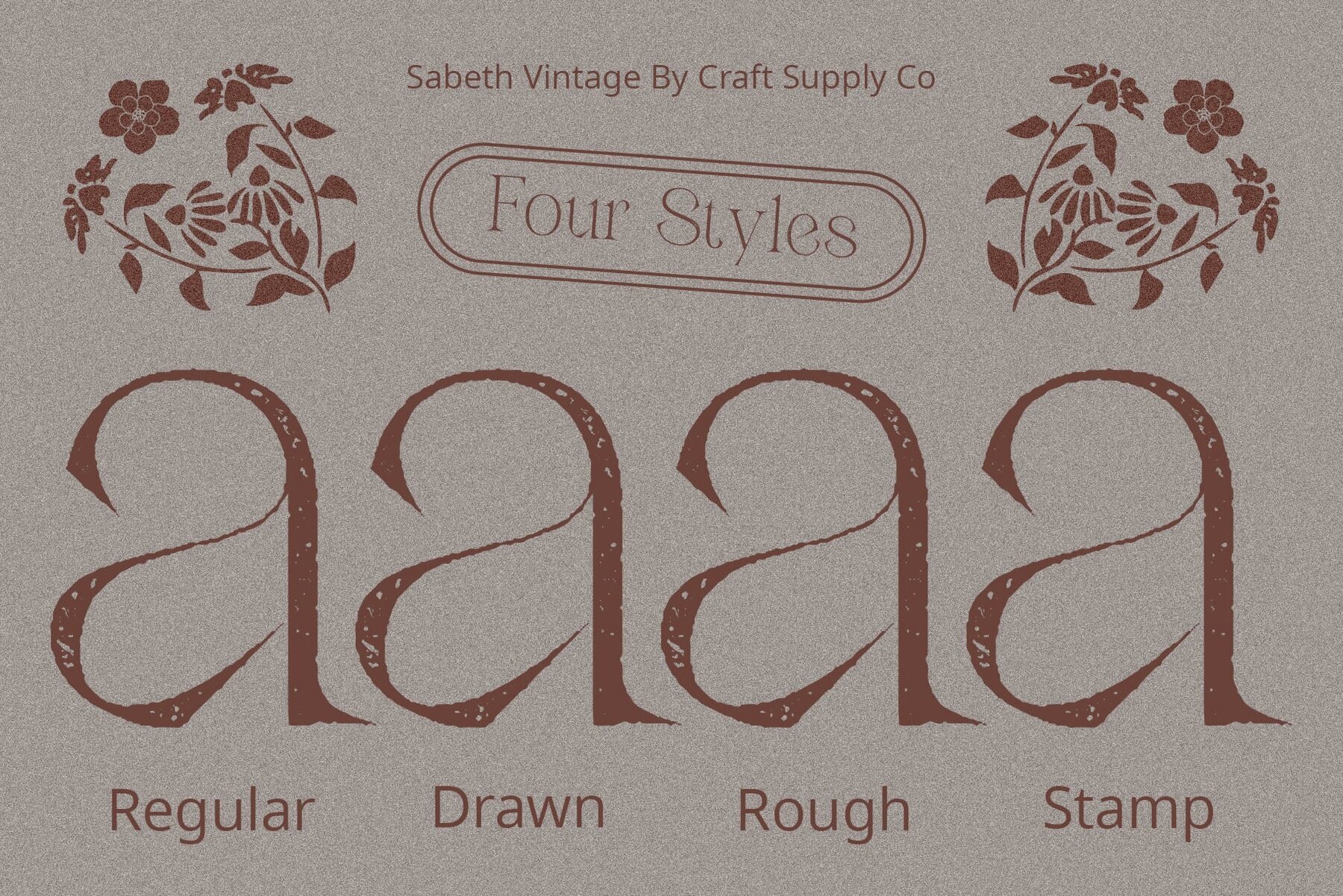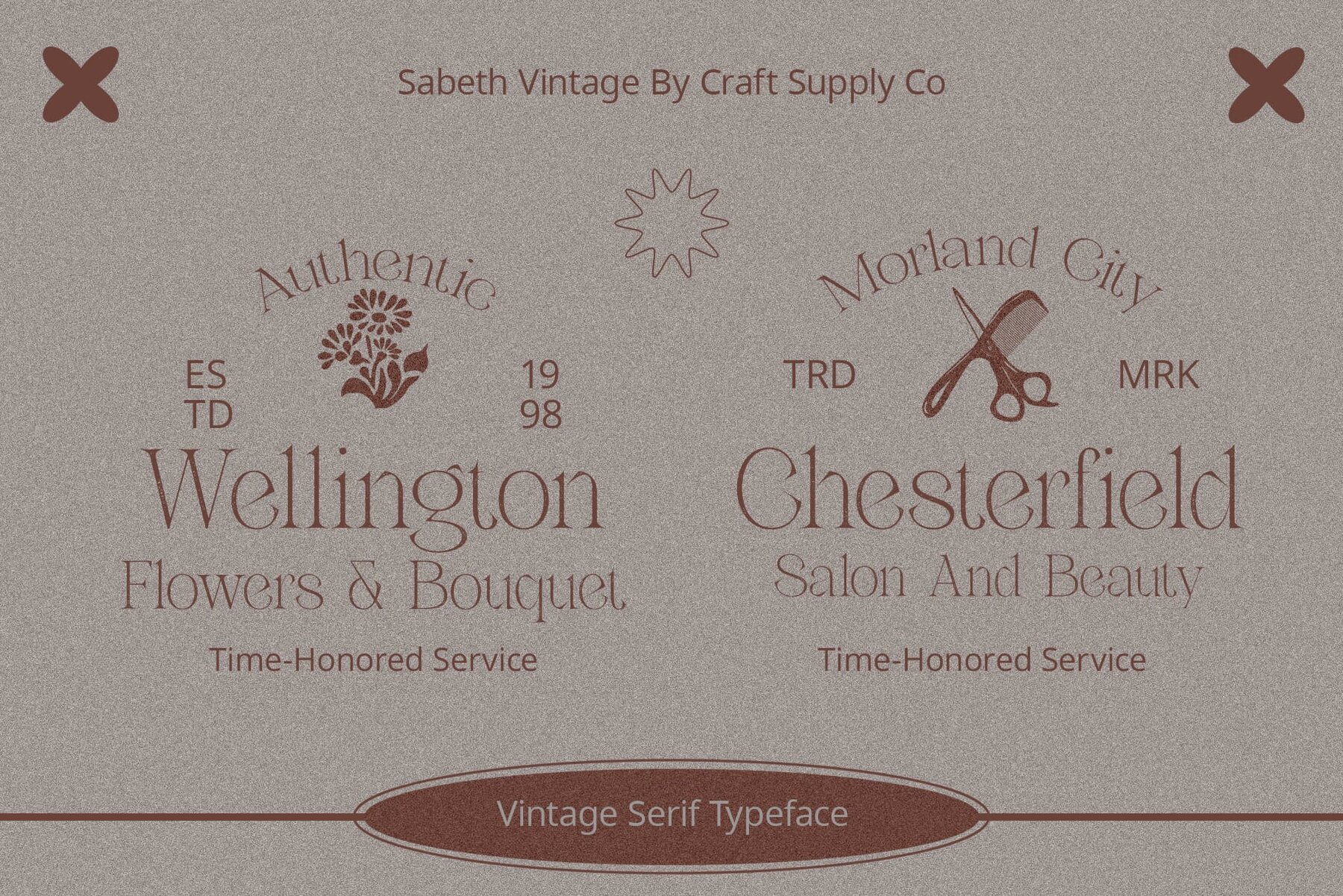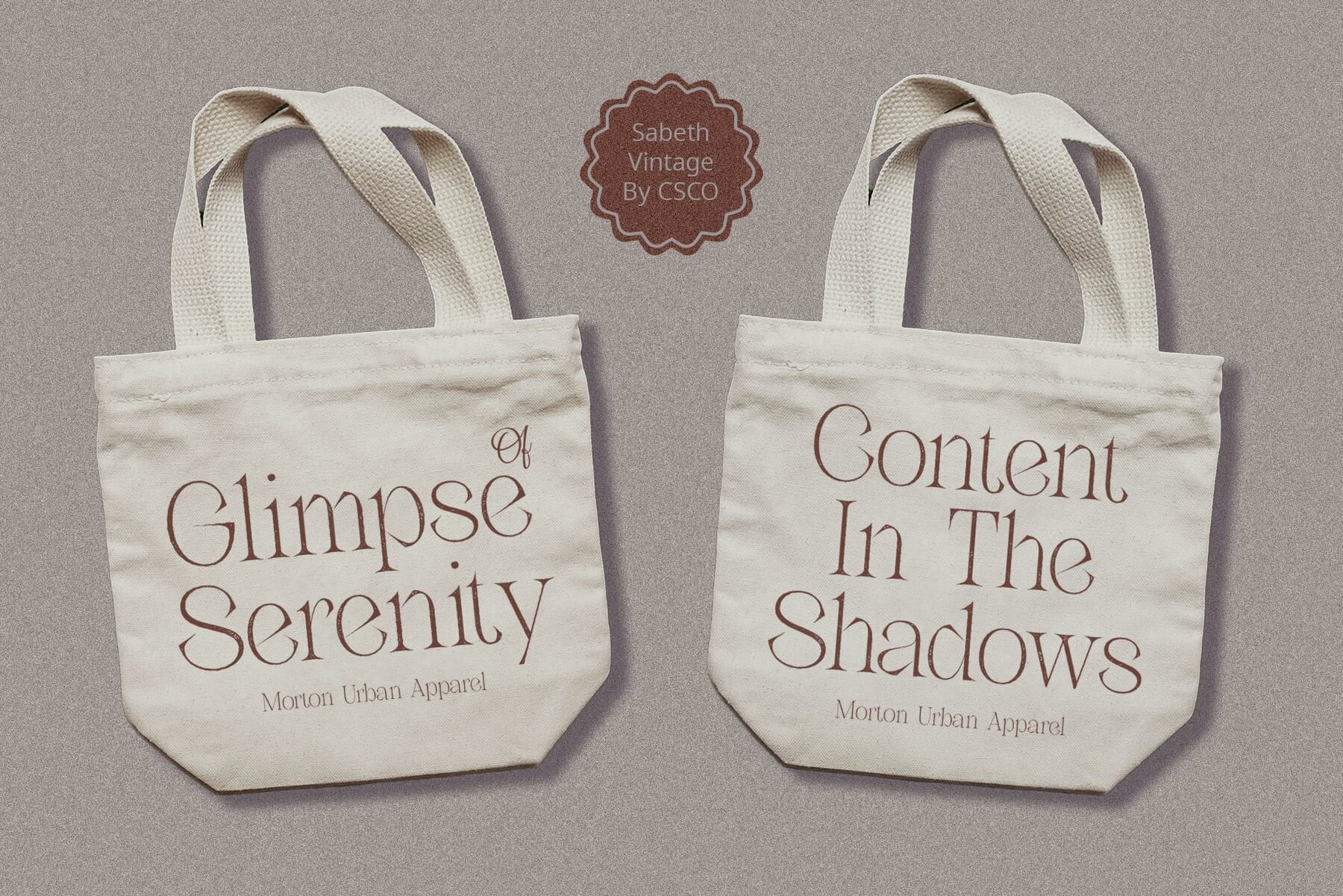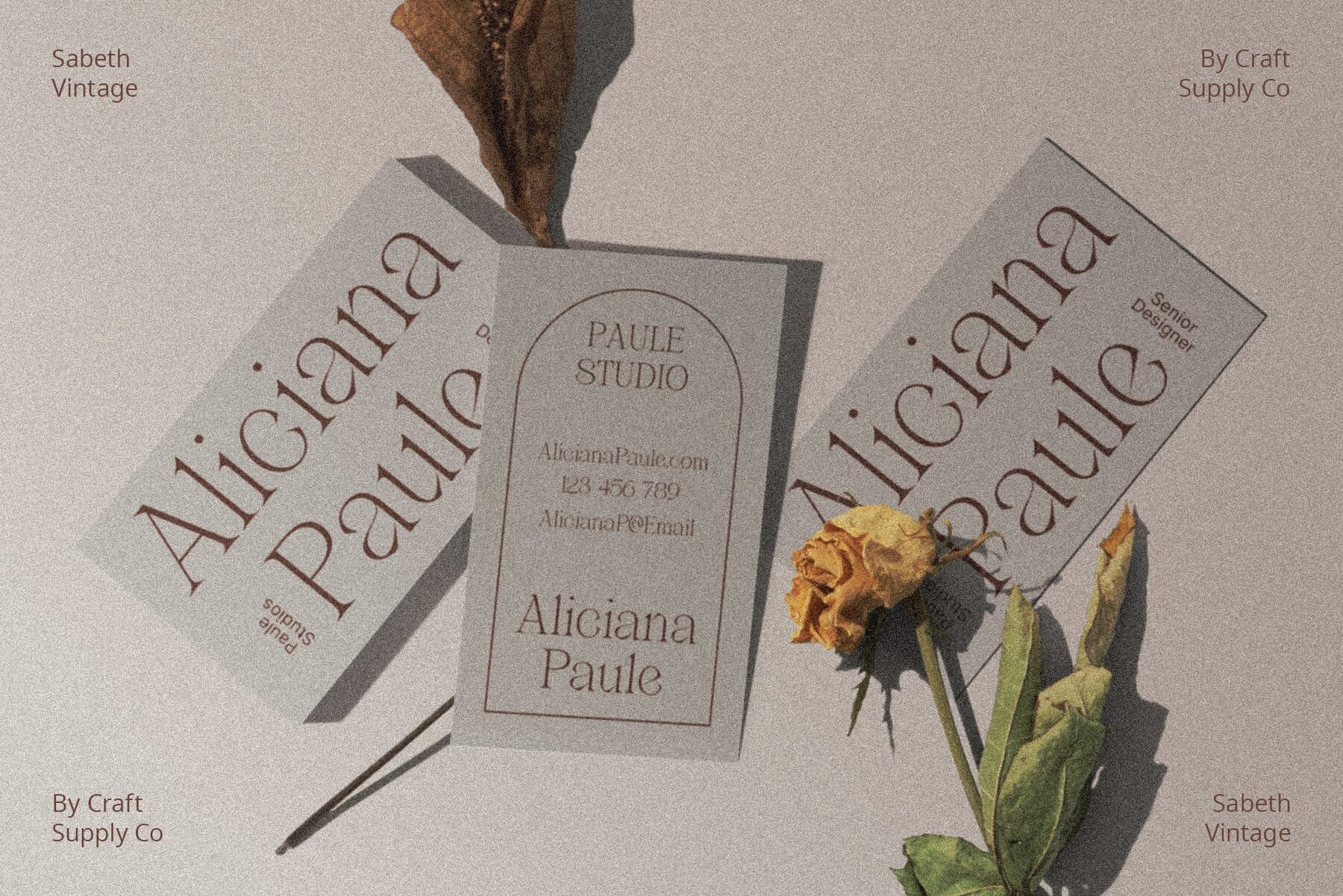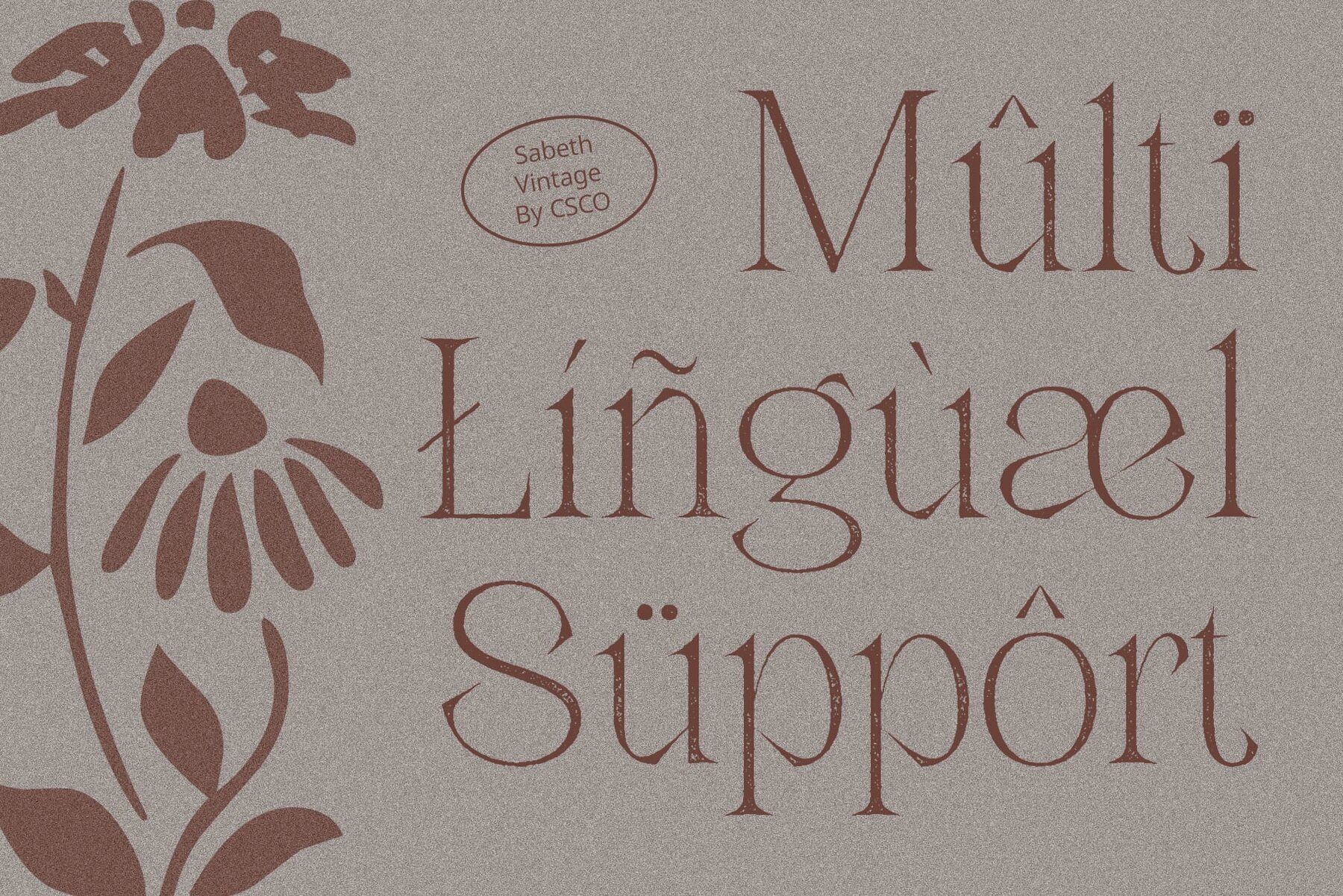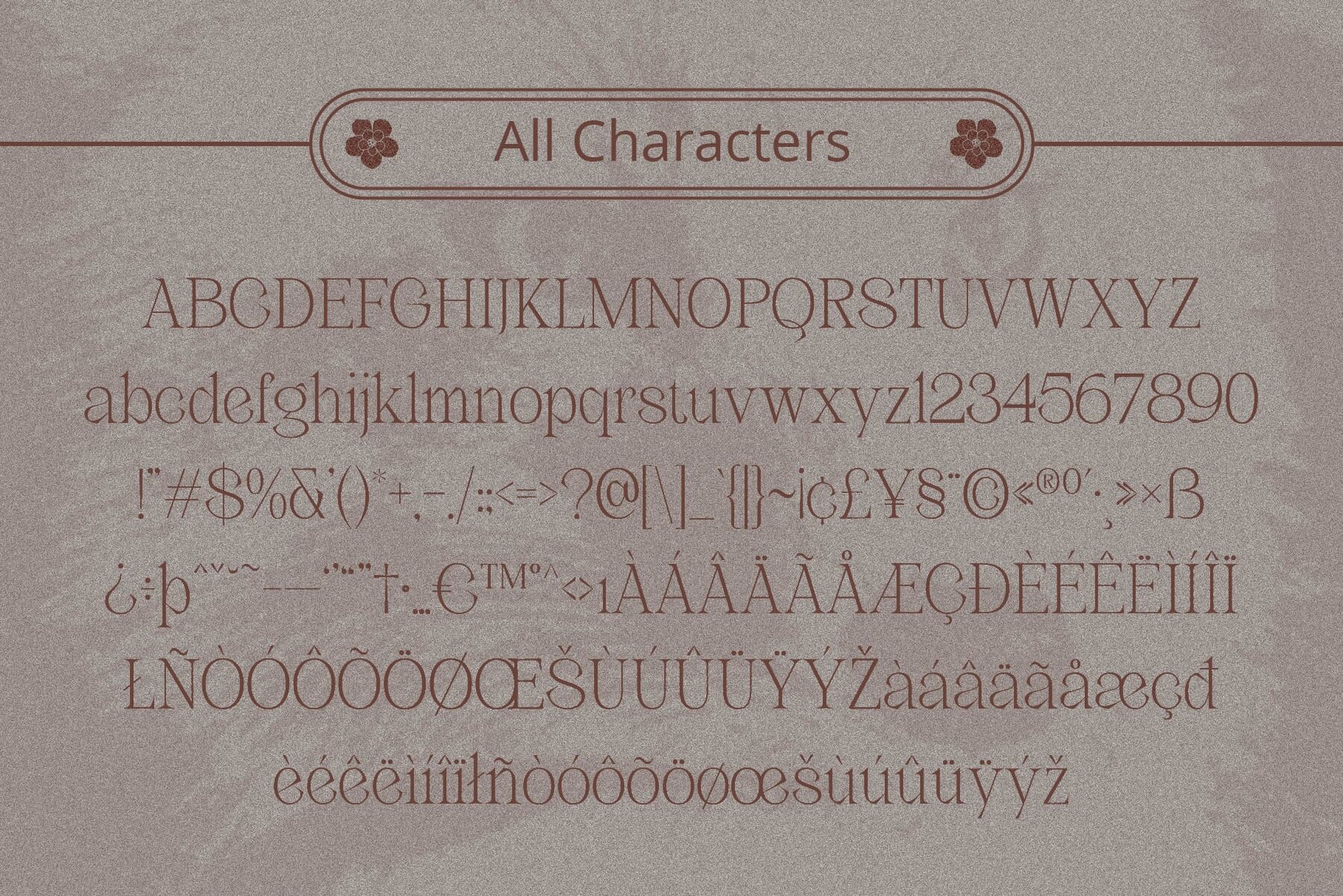
Sabeth Vintage Font
Sabeth Vintage presents a collection of low-contrast thin serif fonts with distinctive pointy terminals, reminiscent of classic typography styles. Infused with vintage allure, this font elevates traditional thin serifs with contemporary stamp rough effects, adding a touch of modernity to its nostalgic appeal. Perfect for evoking retro vibes, this font is ideal for various design applications, from branding and packaging to editorial layouts. Its unique combination of thin serifs and rough stamp effects offers versatility and charm. With this font, effortlessly capture the essence of vintage elegance in your designs. Its low-contrast thin serifs and pointy terminals, coupled with rough stamp effects, create a captivating visual aesthetic that transports viewers to a bygone era. This font emerges as a timeless choice for designers seeking to infuse their projects with a nostalgic charm. Its delicate thin serifs, pointy terminals, and vintage-inspired stamp rough effects create a captivating aesthetic that stands the test of time. No specialized software is needed to utilize this typeface. For any inquiries or assistance, please don’t hesitate to get in touch. We appreciate your support in making your creative projects shine! Best regards, Craft Supply Co.Sabeth Vintage: Embodying Vintage Elegance
Vintage Charm with a Modern Twist
Versatile Usage for Retro Vibes
Captivating Vintage Aesthetic
Timeless Nostalgia